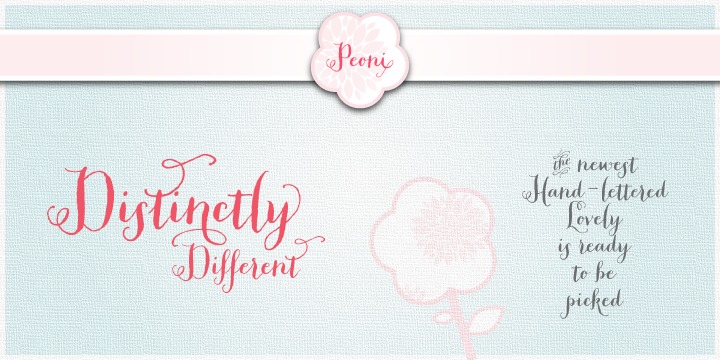
Peoni
Peoni is a delicate, sweet and quirky font. It is distinctly different from all of the other fonts that offer decorative italic styles. The incredible hand-lettered glyphs of this amazing font has have retained their original imaginative textured appearance to ensure bona fide custom-lettering feel. Equipped with over 1200 glyphs, Peoni can be defined as … Read more